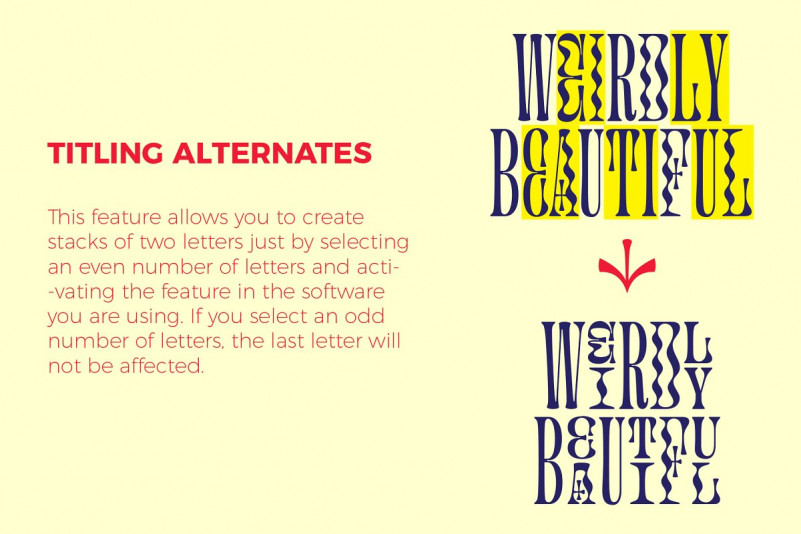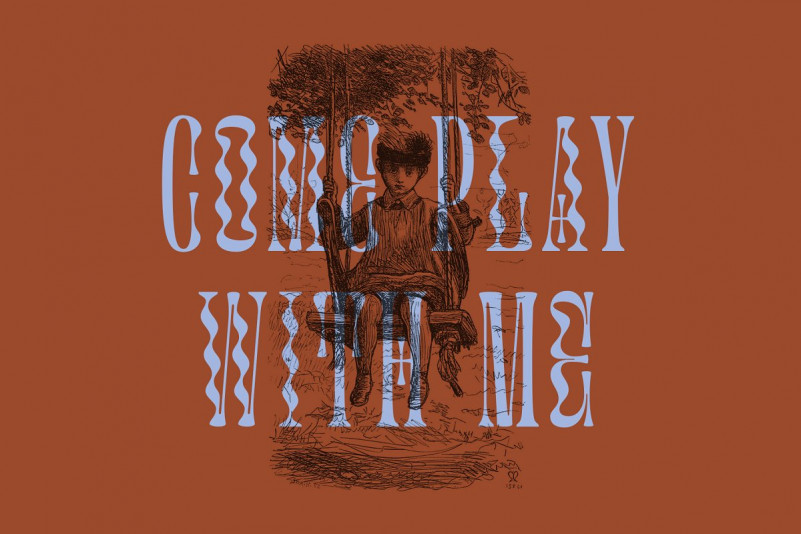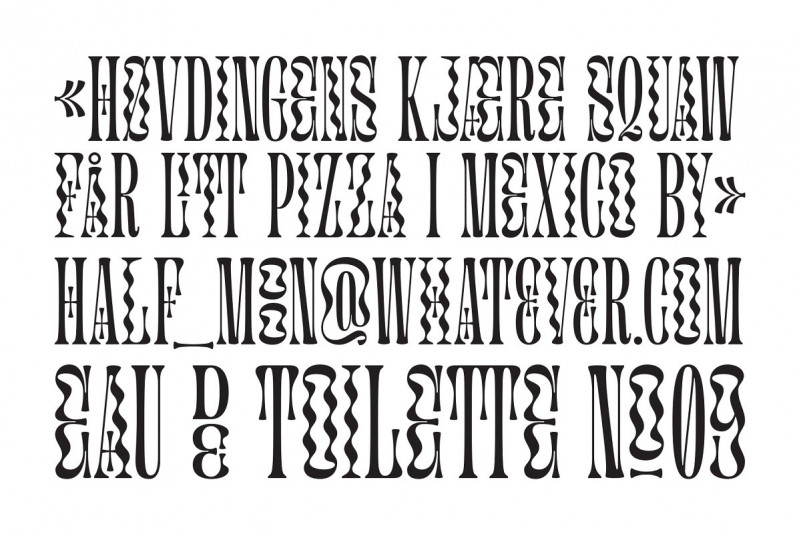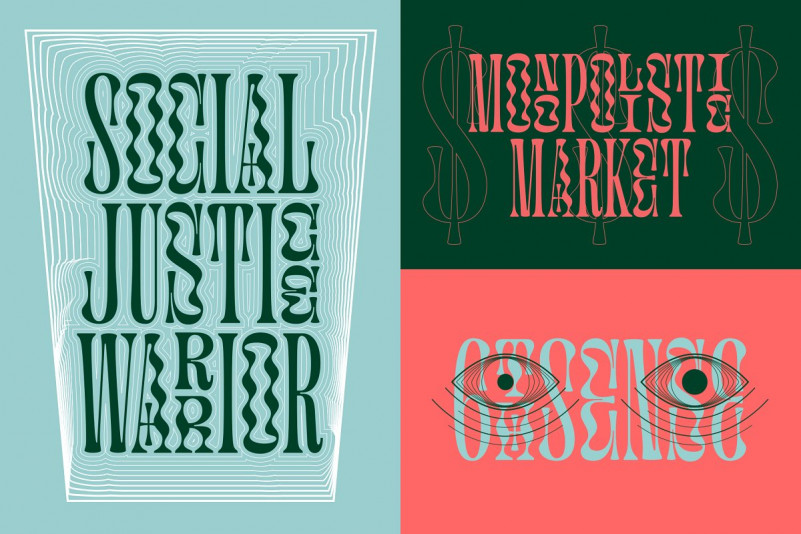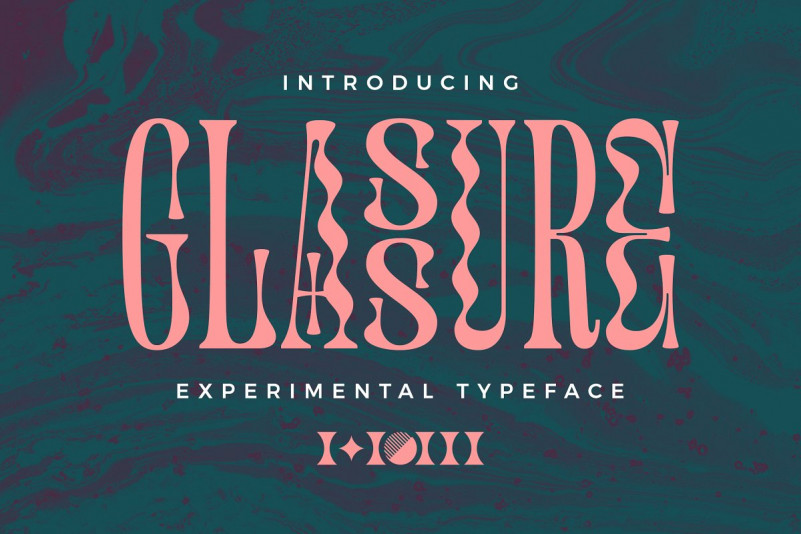
Glassure Typeface
This is a mighty bold font with vintage vibes. Introducing Glassure Font.An upper and lowercase decorative font with abrupt outlines, filled by a wavy zebra-striped pattern. Glassure Typeface is an experimental typeface that is inspired by every pull and curl in the process of making glass sculptures, weird yet beautiful marble pattern, and a little touch of art nouveau and vintage style. Combine the uppercases, lowercases and other feature to get the look that you want. There is a unique feature in this typeface that allows you to make two-letters block just by selecting an even number of letters and activating the ‘titling alternates’ in the software you are using.